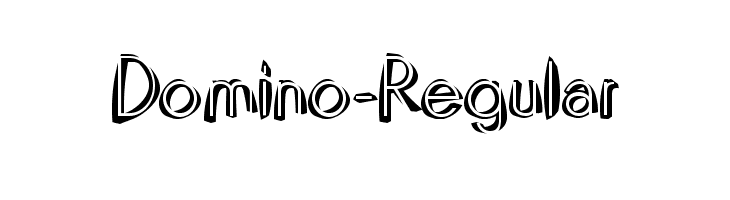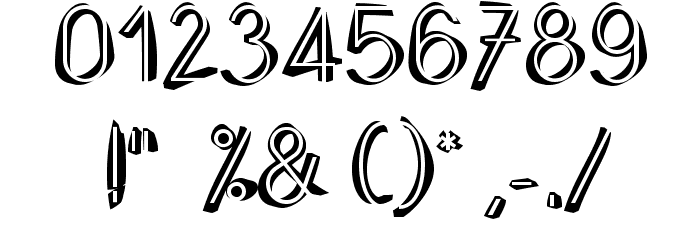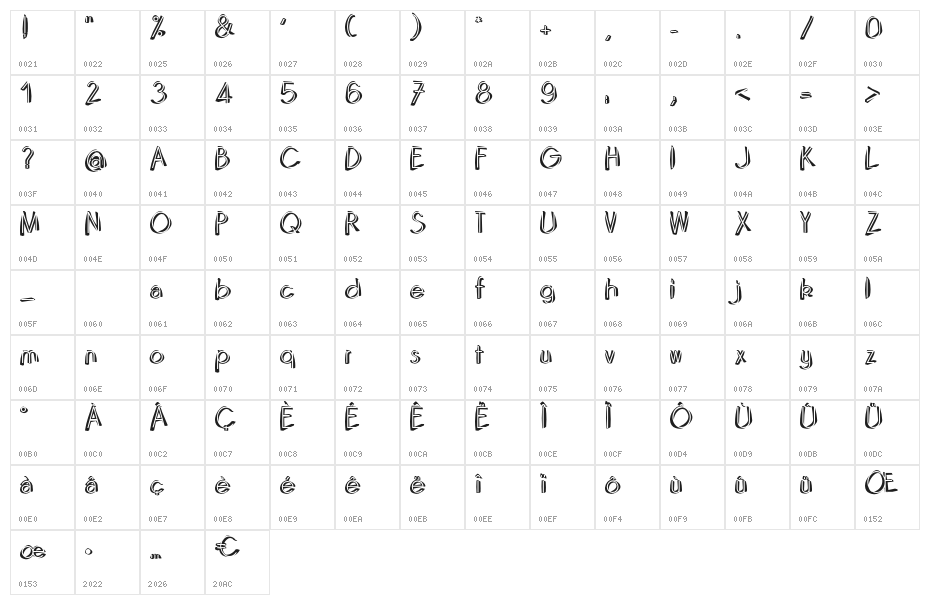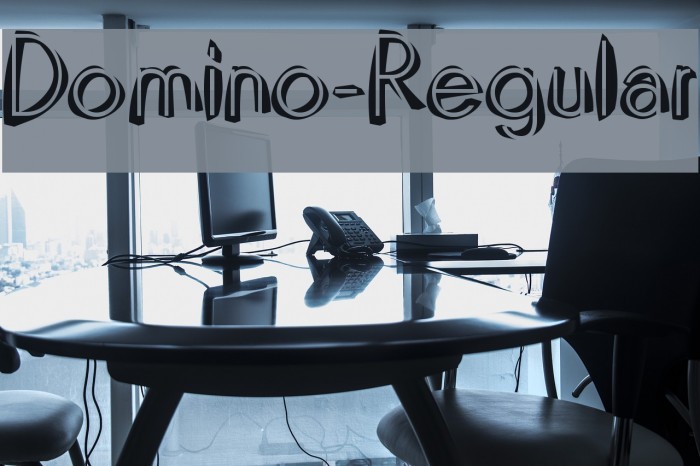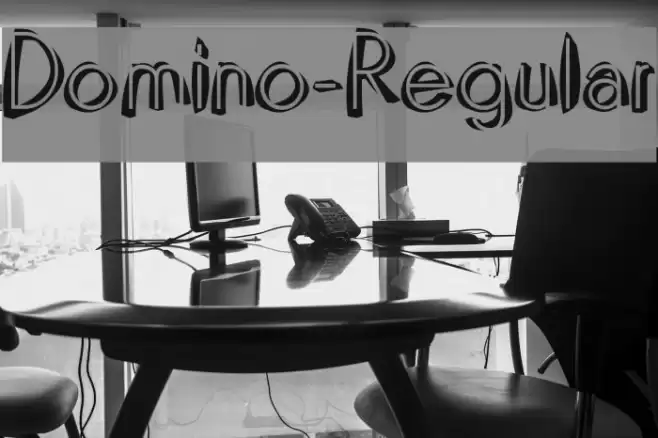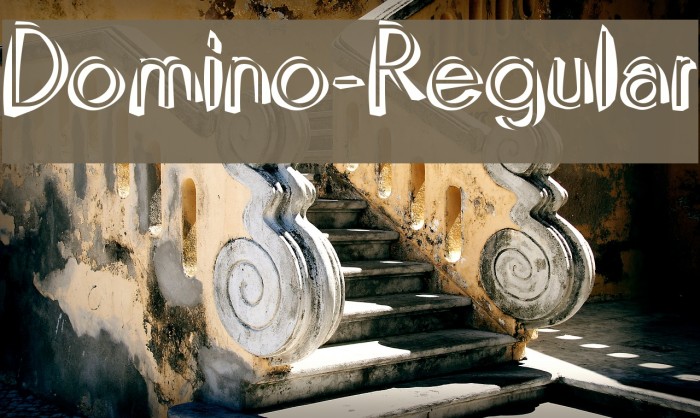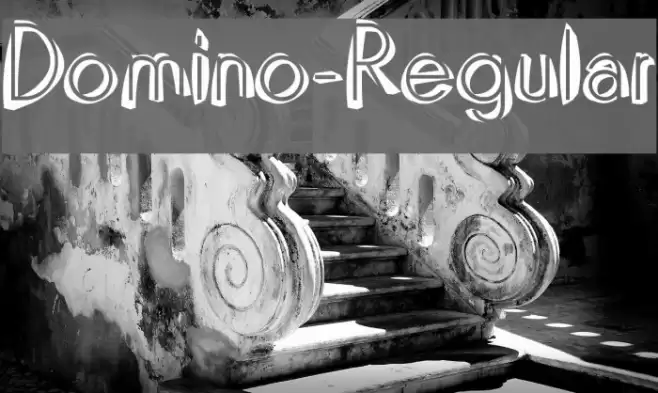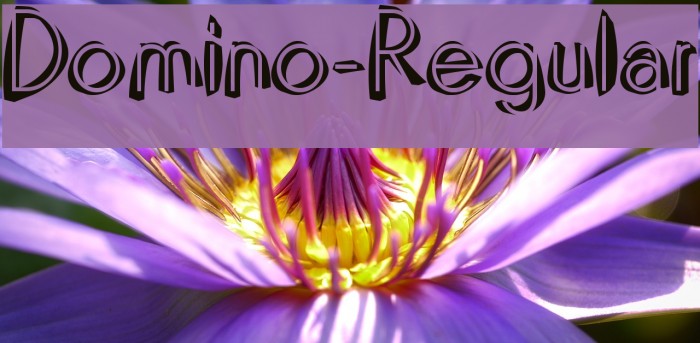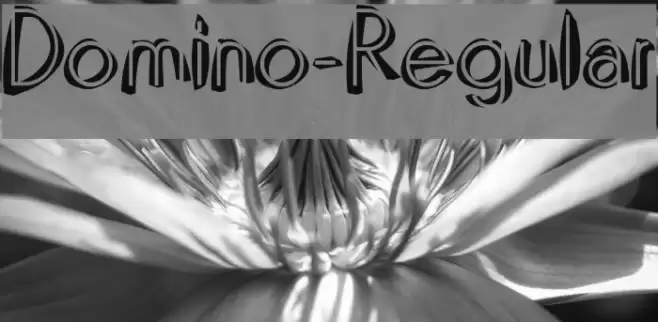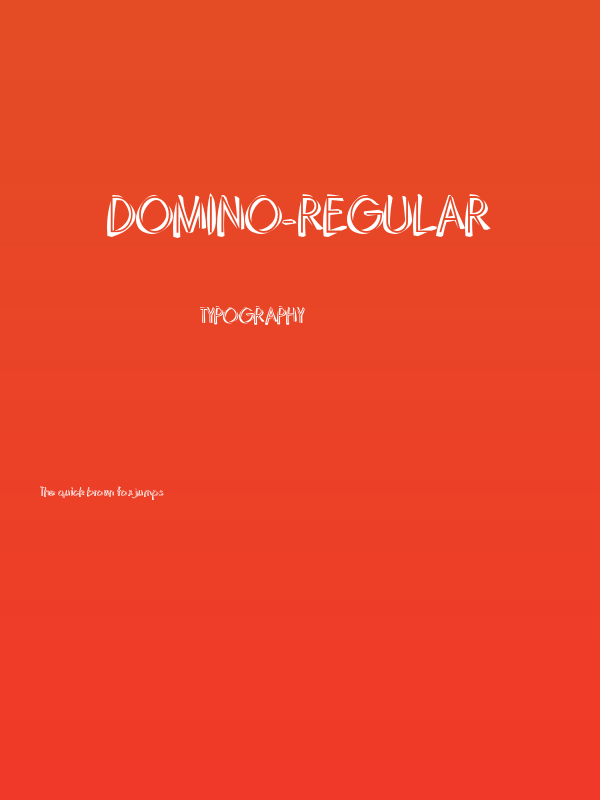
Domino-Regular Font
Domino-Regular Description
This font features a playful and dynamic style with a three-dimensional effect, achieved through bold outlines and shadowing. The characters have a unique, artistic flair, with varying stroke thickness that adds depth and movement. The uppercase and lowercase letters maintain a consistent style, while the numerals and special characters complement the overall design. This font stands out with its decorative elements, making it ideal for eye-catching designs.